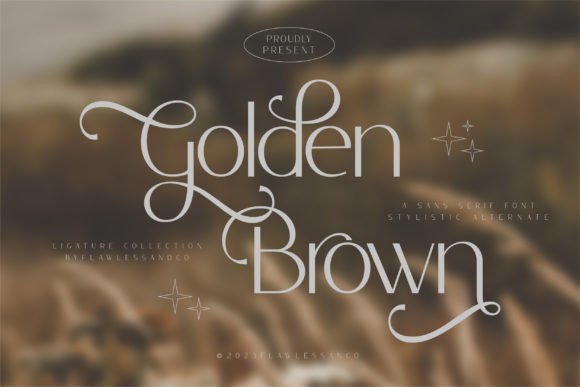
Discover the exquisite beauty of "Golden Brown" - an elegant sans serif font meticulously crafted by Flawless And Co. This font is not just a mere addition to your collection, it's a gateway to a world of refined sophistication and endless design possibilities.
With its clean lines and timeless allure, "Golden Brown" effortlessly captures attention and adds a touch of individuality to any project. Whether you're creating a logo, designing a website, or crafting an eye-catching advertisement, this font will elevate your work to new heights.
What sets "Golden Brown" apart from other fonts is its carefully curated range of alternate characters and ligatures. These unique elements allow you to create captivating typography that stands out from the crowd. Watch as your text transforms into a work of art, conveying emotions and telling stories like never before.
Immerse yourself in the versatility of "Golden Brown." Its seamless integration into any design ensures that your message is delivered with style and impact. From sleek and modern to elegant and vintage, this font adapts effortlessly to your vision, making it the perfect choice for any creative endeavor.
Let your imagination run wild with "Golden Brown." Its elegant curves and sophisticated charm will captivate your audience, leaving a lasting impression. Whether you're a professional designer or a DIY enthusiast, this font empowers you to create stunning visuals that resonate with your target audience.